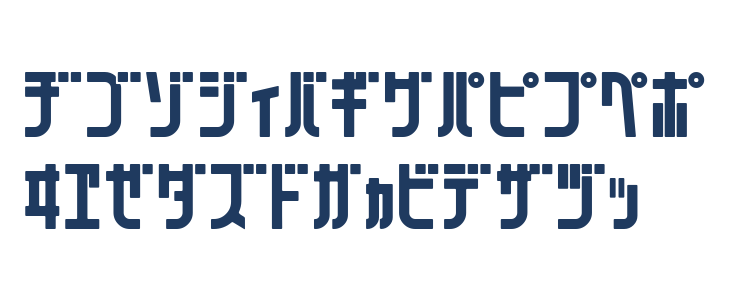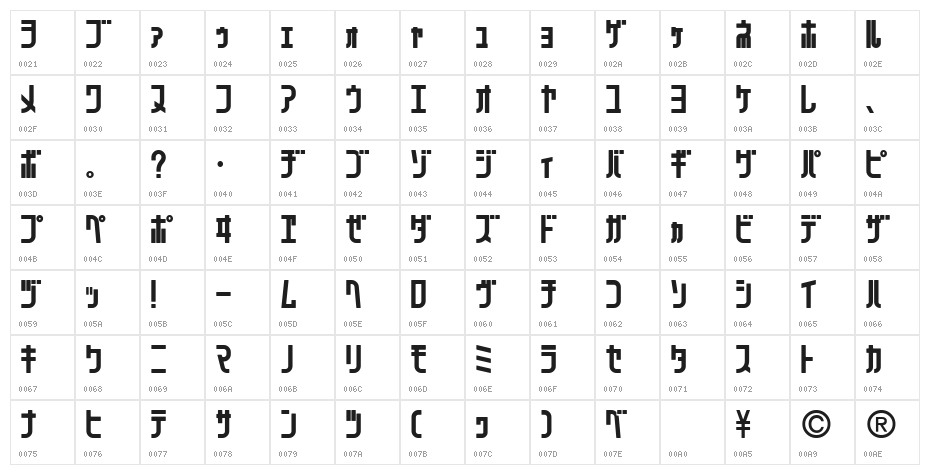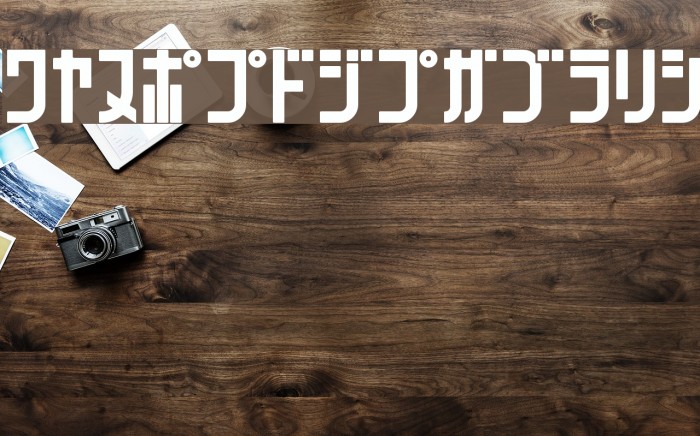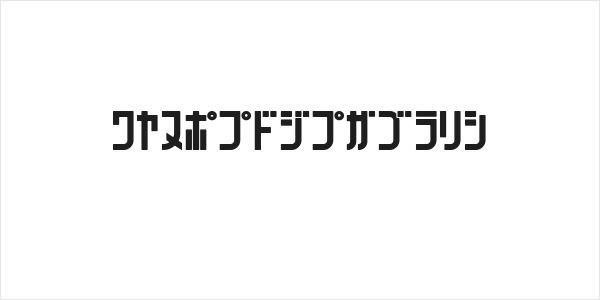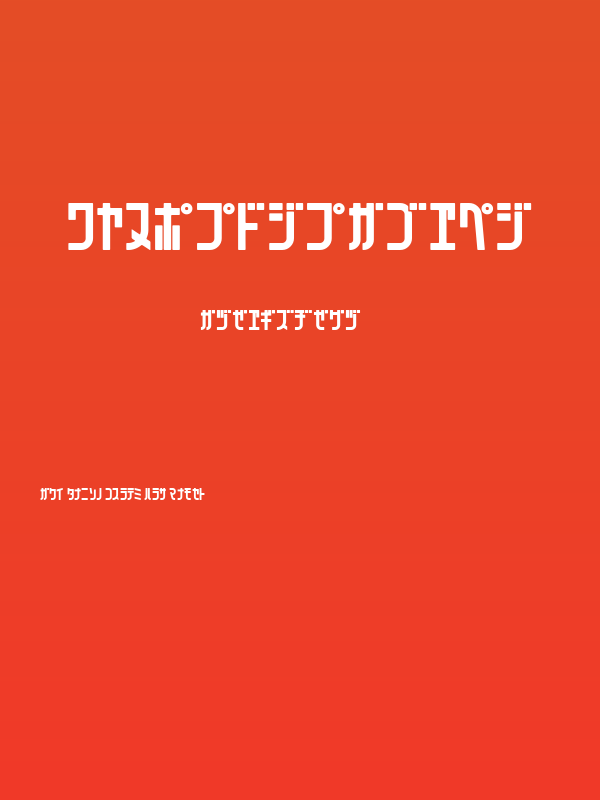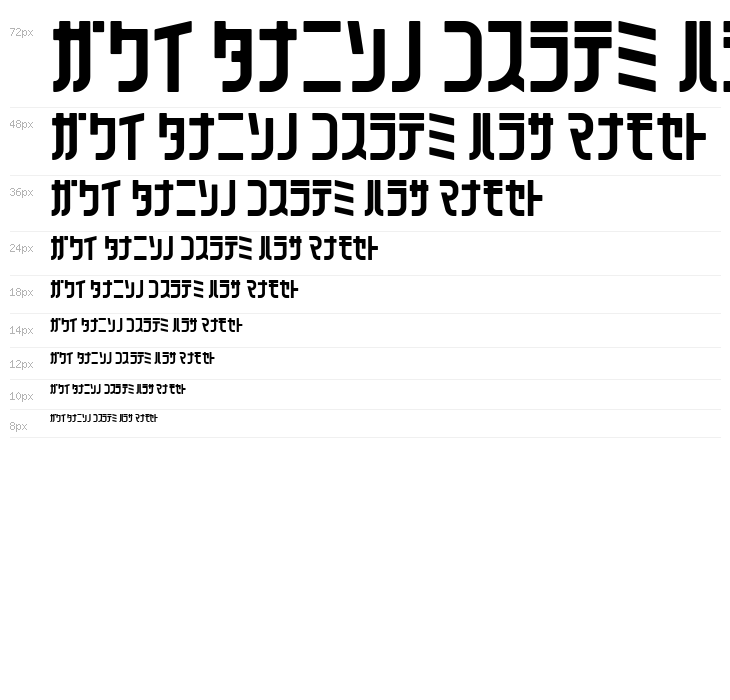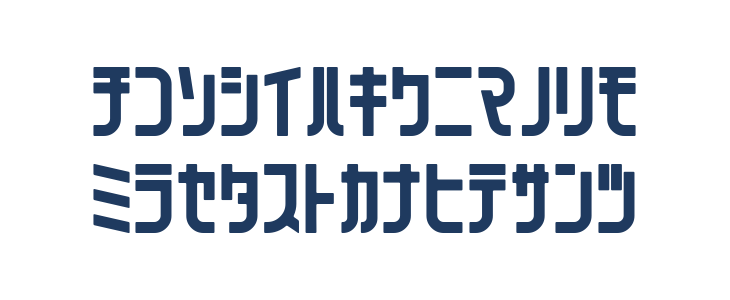
071MKSDKTBold Font
071MKSDKTBold Description
This font features bold, geometric characters with a distinctively modern and structured appearance. The strokes are thick and uniform, giving it a strong presence on the page. The characters are designed with a slight squarish shape, which adds to its contemporary feel. The spacing between the characters is tight, creating a compact and cohesive look. This font is ideal for creating impactful headlines or titles where a bold statement is needed. Its clean lines and lack of serifs make it highly readable, even at smaller sizes, while still maintaining a sense of style and modernity.
| Proposed Projects | Ideal for headlines, posters, branding materials, and any project requiring a strong visual impact. |